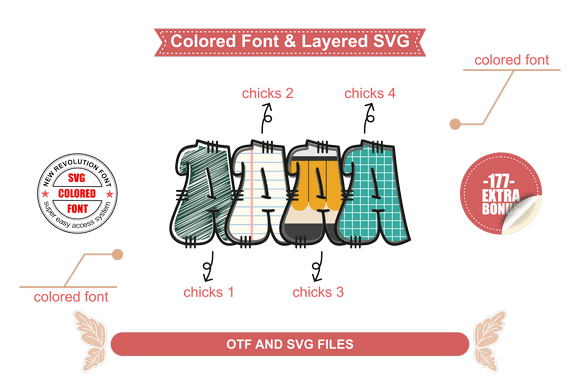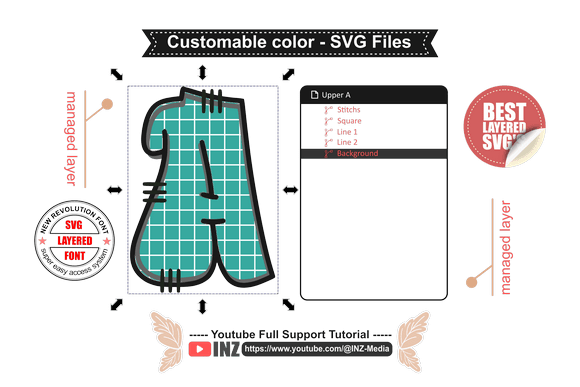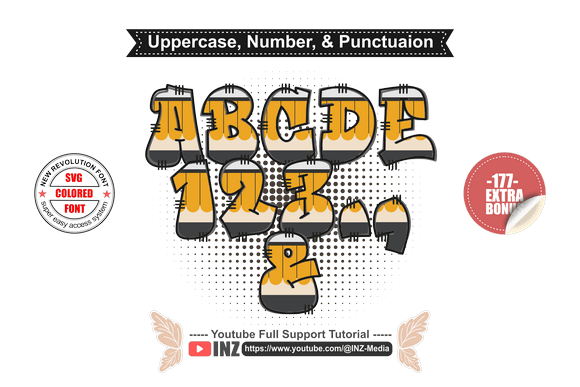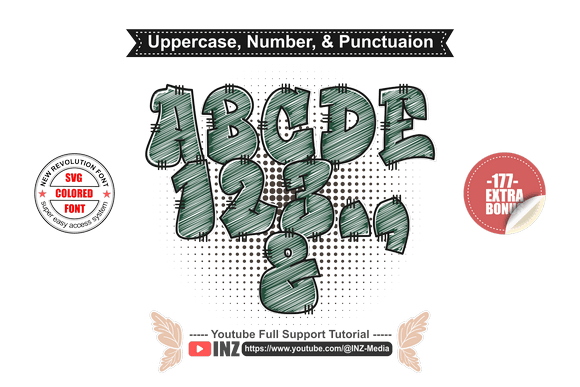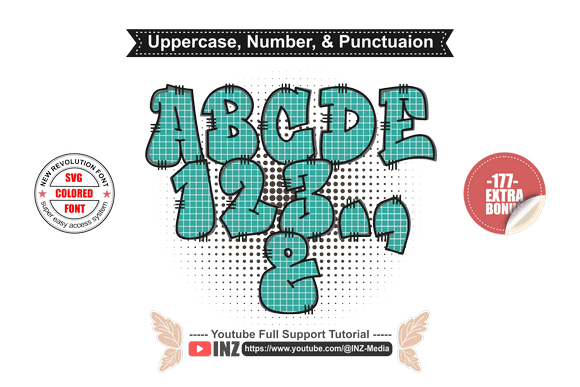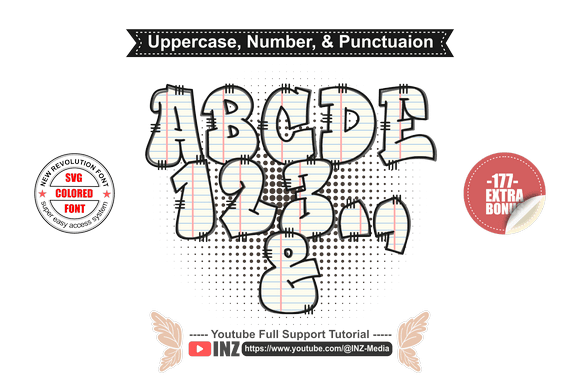
Back to School Font: Elevate Your Designs with a Graffiti Theme
As the new school year approaches, designers and crafters are on the lookout for fresh and exciting fonts to elevate their projects. If you’re looking to add a bold and dynamic touch to your designs, look no further than the Back to School Font, also known as the School Font. This graffiti theme font is perfect for grabbing attention and making a statement in any project.
What is the School Font?
The School Font is a unique and fun graffiti display font that combines bold, dynamic lines with an authentic street art vibe. Its modern and cool look makes it ideal for a variety of design projects, from branding and logos to cartoons and games. The font’s edgy and playful style is sure to capture the attention of your audience and leave a lasting impression.
Key Features of the School Font
- Graffiti Theme: The School Font boasts a bold and dynamic graffiti theme that’s perfect for designers looking to add a street art vibe to their projects.
- Display Font: This font is specifically designed as a display font, making it ideal for headlines, titles, and logos.
Uses for the School Font
The School Font is a versatile font that can be used in a variety of design projects, including:
- Branding: Use the School Font to create bold and eye-catching logos and branding materials that will help your business stand out.
- Games: The School Font is perfect for game designers looking to add a modern and cool touch to their game’s UI and marketing materials.
- Cartoons: The font’s playful and edgy style makes it ideal for cartoonists and animators looking to add a bold and dynamic touch to their work.
- Logos: Use the School Font to create unique and memorable logos that will help your business or brand stand out.
Tips for Using the School Font
To get the most out of the School Font, here are a few tips to keep in mind:
- Use it boldly: The School Font is designed to be bold and eye-catching, so don’t be afraid to use it in large sizes and bold colors.
- Experiment with colors: The color version of the School Font is compatible with a range of design programs, so feel free to experiment with different colors and gradients.
- Pair it with other fonts: The School Font can be paired with other fonts to create a unique and interesting contrast. Try pairing it with a clean and simple font for a bold and eye-catching effect.
The School Font is a unique and fun graffiti display font that’s perfect for designers and crafters looking to add a bold and dynamic touch to their projects. With its modern and cool look, multi-platform compatibility, and versatility, this font is sure to elevate your designs and help you make a statement. Whether you’re working on a branding project, game, cartoon, or logo, the School Font is a great choice.